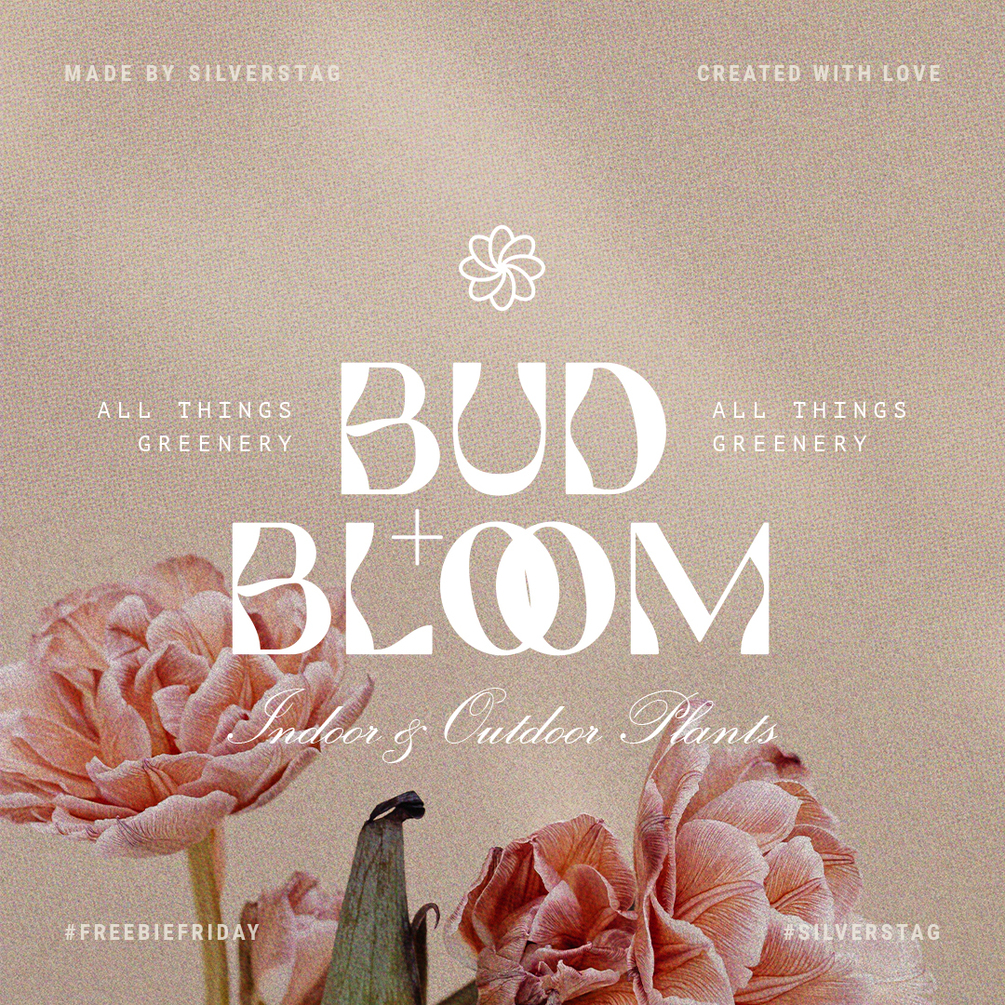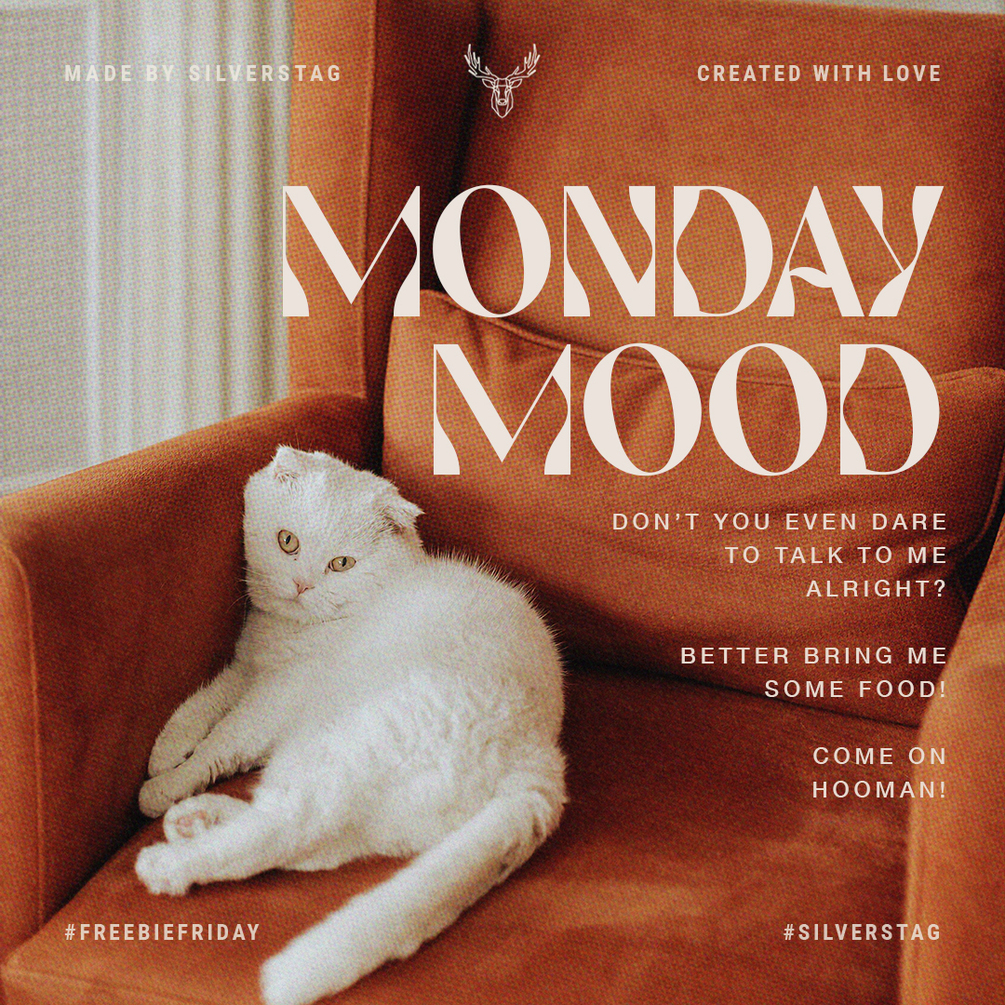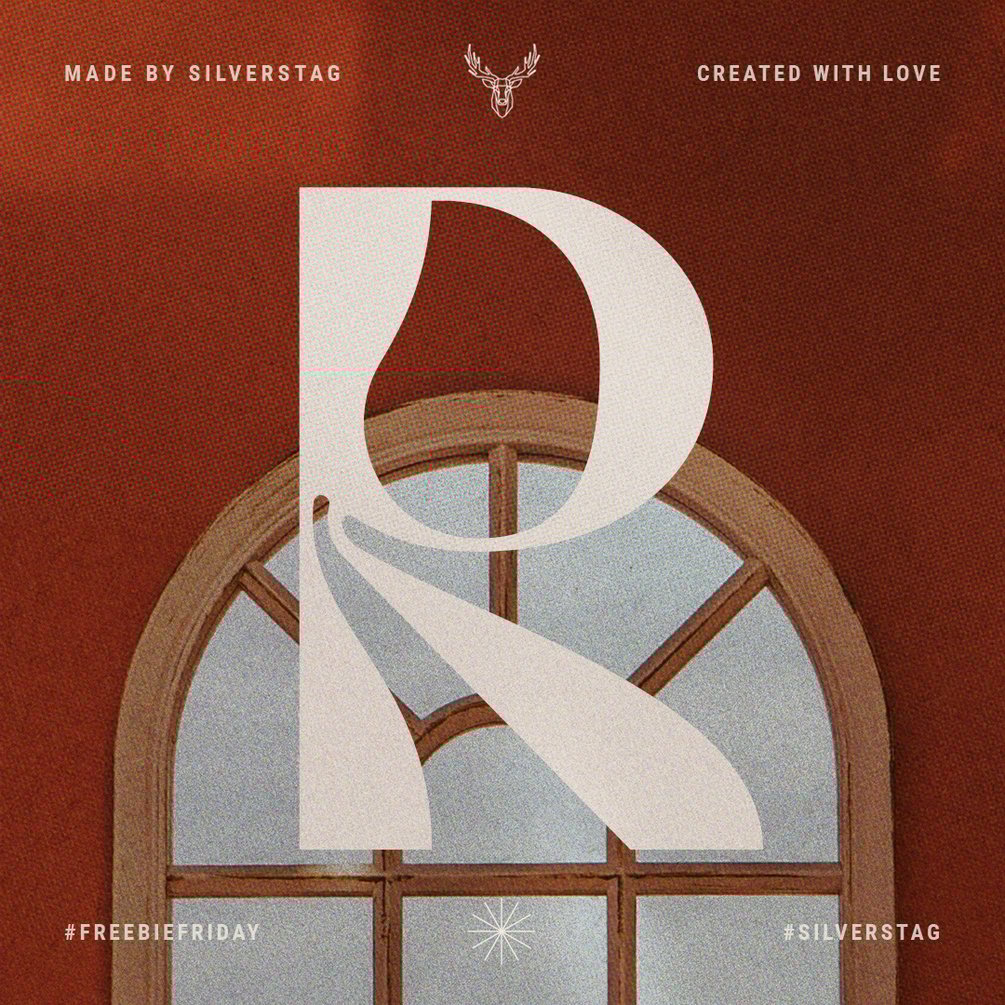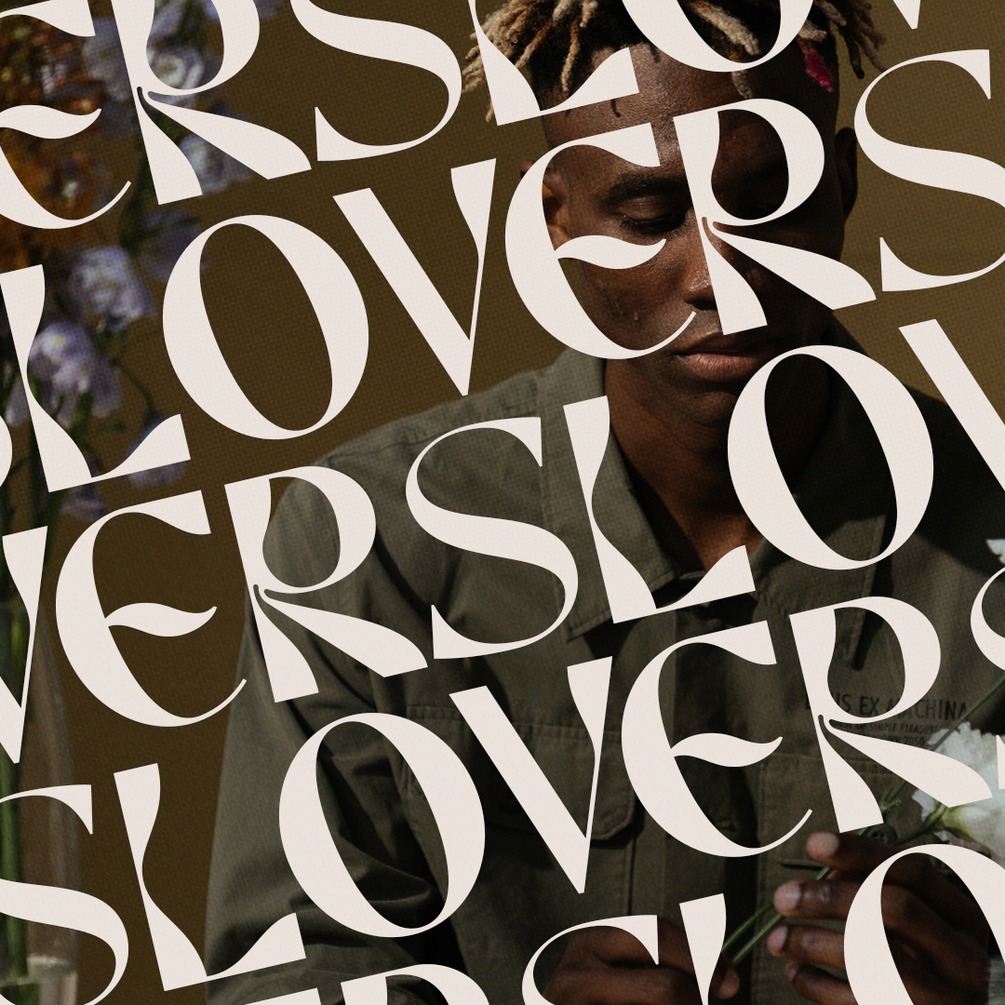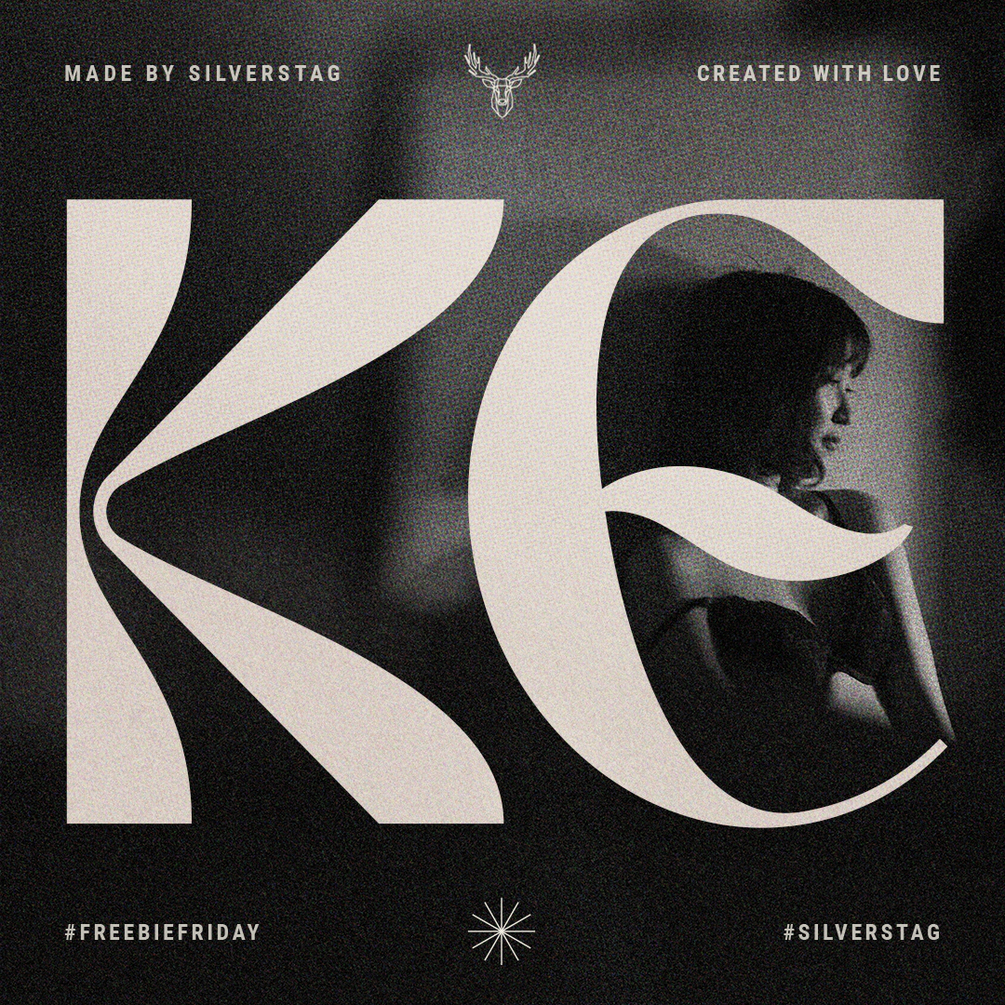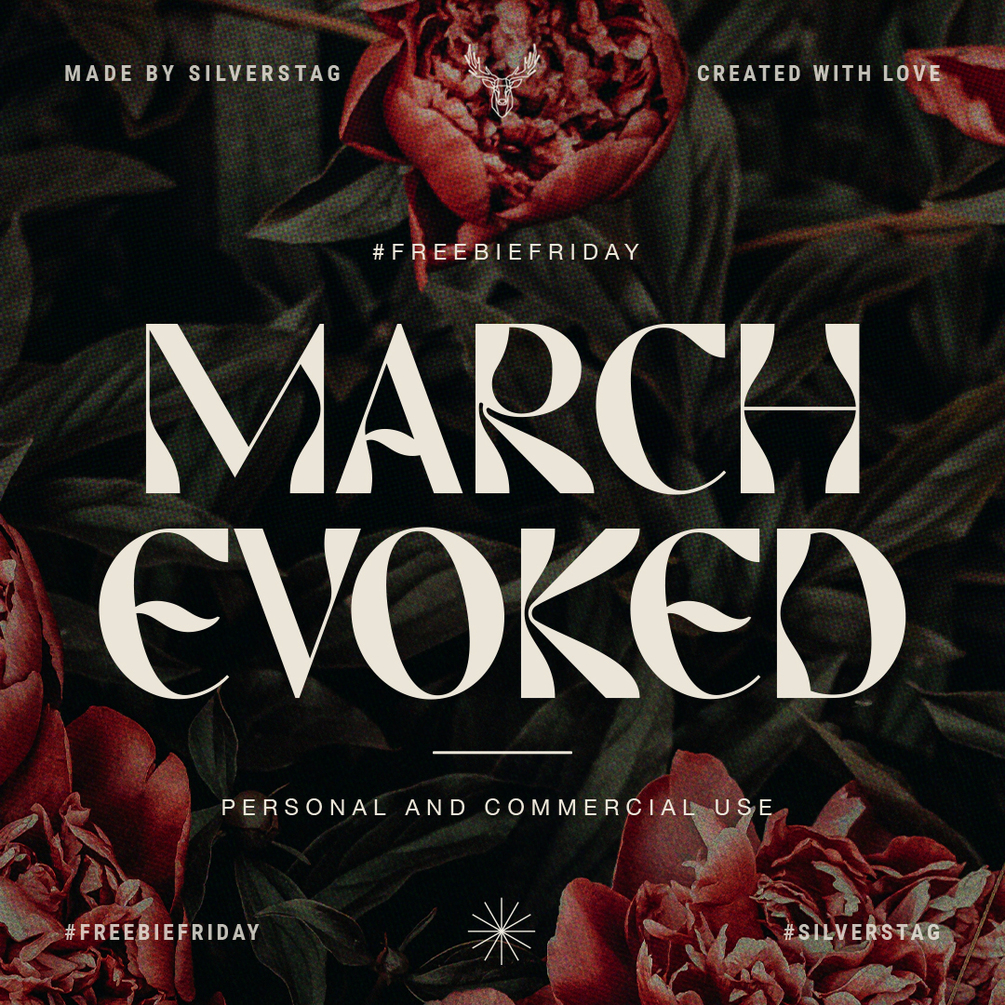
March Evoked - Display Font Demo
SilverStag Type Foundry
Is it really spring without peonies? Is it really Friday without a freebie? Technically, we do have to wait for Spring for almost a month, but you don't have to wait for a chic & creative free font anymore! March Evoked Demo is here and it's free for personal and commercial use. Since this is a work in progress, demo version only includes uppercase letters, but if you like the font, you will be able to get the full version with a lot of additional ligatures, alternates & more next week!